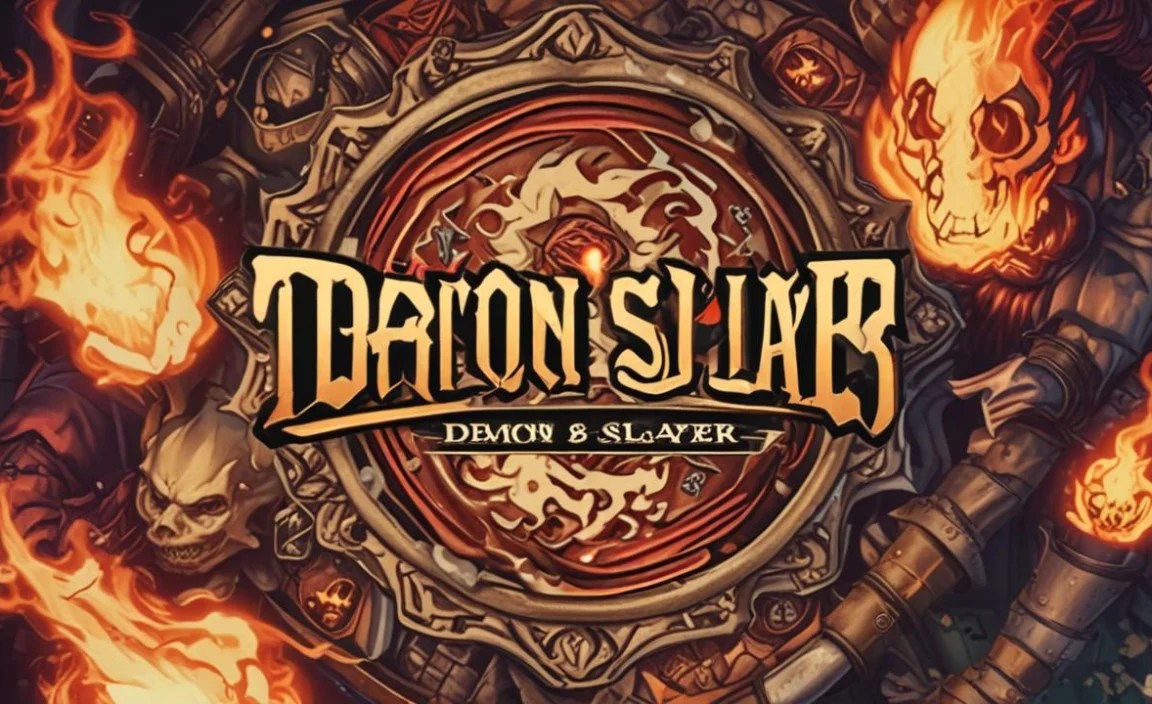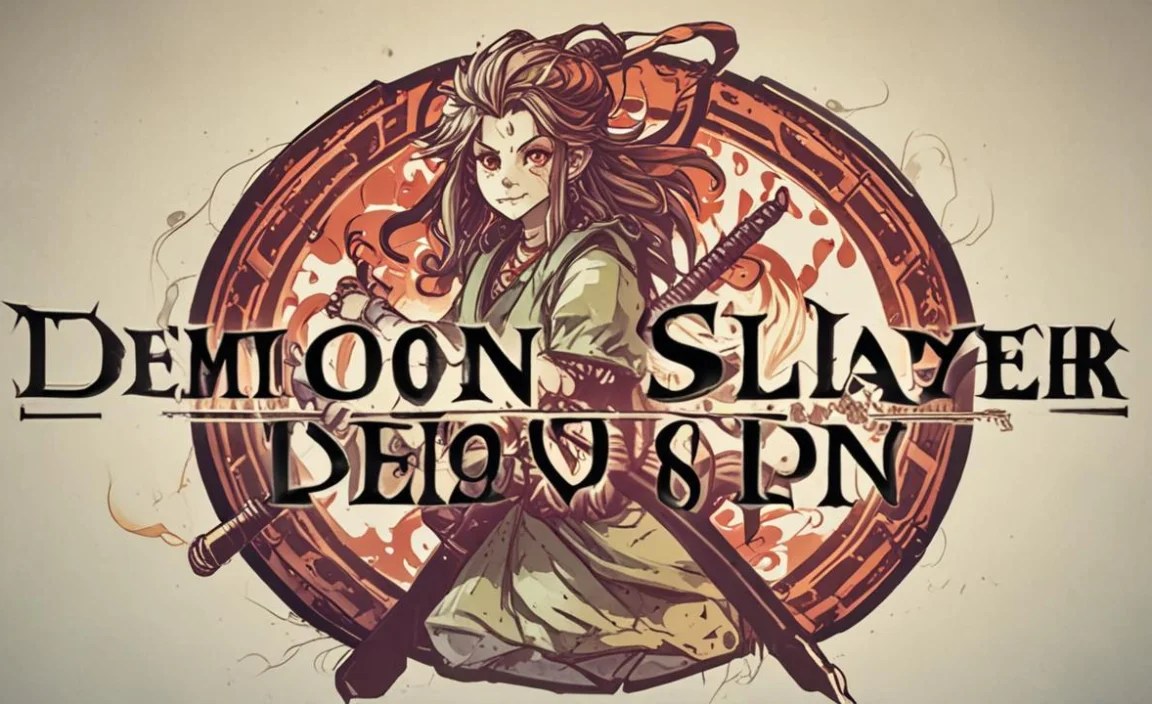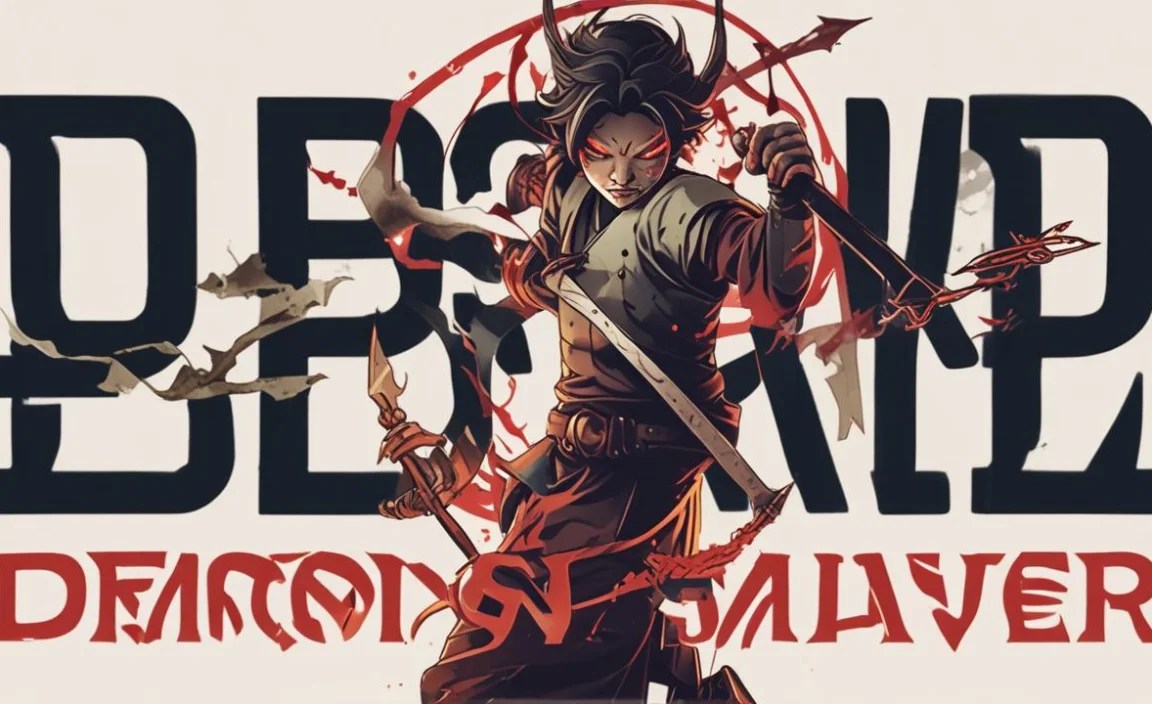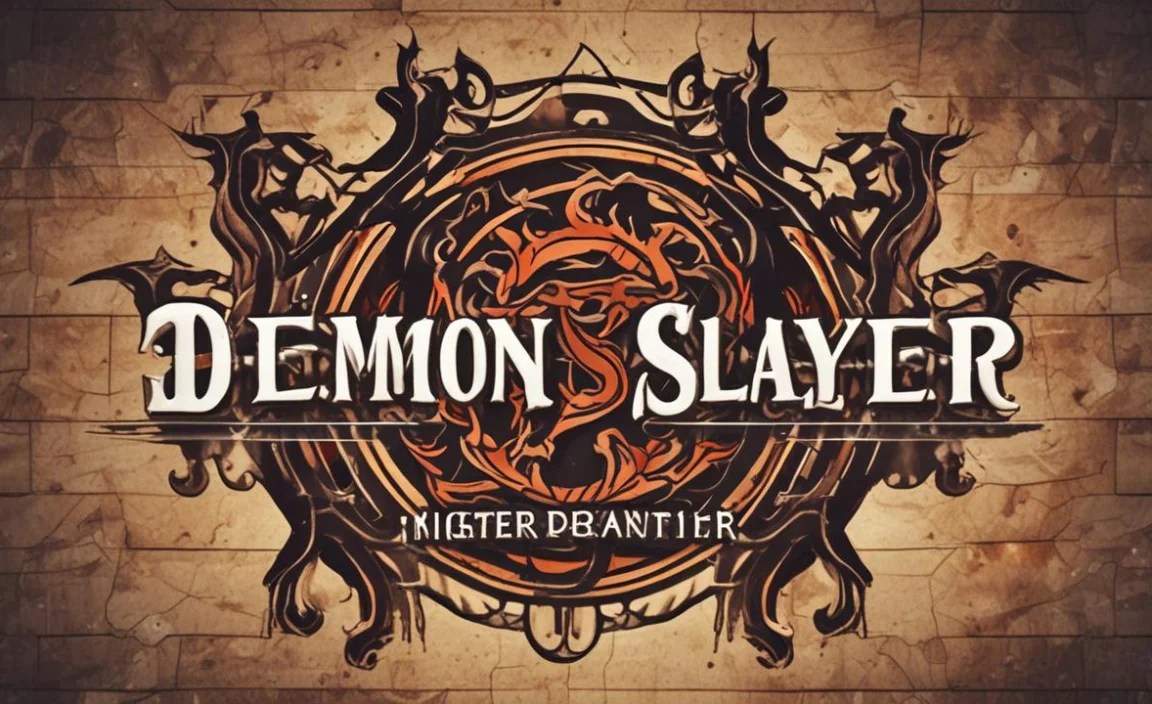
The Demon Slayer Font, prominently featured in the branding for the anime series Demon Slayer: Kimetsu no Yaiba, is a striking and thematic typeface that reflects the dark and dramatic essence of the series.
This font Blood Crow Condensed, widely used in the logo and promotional materials, encapsulates the series’ intense and thrilling atmosphere, making it an ideal choice for conveying its unique aesthetic.
Demon Slayer Font Information
| Name | Blood Crow Condensed |
| Style | Serif |
| Designer | Daniel Zadorozny |
| Type | Bold Serif |
Demon Slayer Font Family Includes
- Demon Slayer Regular
- Demon Slayer Katakana
- Demon Slayer Grunge
- Blood Crow Regular
- Blood Crow Italic
- Blood Crow Condensed Regular
- Blood Crow Condensed Italic
- Blood Crow Expanded Regular
- Blood Crow Expanded Italic
- Blood Crow Shadow Regular
- Blood Crow Shadow Italic
- Blood Crow Shadow Condensed Regular
- Blood Crow Shadow Condensed Italic
Where Demon Slayer Font Is In Use
The Demon Slayer Font plays a crucial role in establishing the series’ visual identity. Its bold and dramatic design makes it ideal for various applications. Notable uses include:
- Flyers,
- Posters,
- Apparel,
- Fan Arts,
- Title cards,
- Digital ads,
- Series Logos,
- Media graphics,
- DVD/Blu-ray packaging.
2. Why Is Demon Slayer Font Popular In Anime Branding?
The Demon Slayer Font’s bold and menacing design aligns perfectly with the series’ dark fantasy theme, enhancing its visual impact and appeal.
3. Are There Any Special Characters In The Demon Slayer Font?
The Blood Crow Condensed font includes standard characters but lacks extensive special characters or symbols.
4. What Are The Limitations Of The Demon Slayer Font?
The font’s bold serif style may not suit all design needs and is less versatile for detailed text work.
8. What Are The Different Versions Of Demon Slayer Font?
Demon Slayer Font includes styles like Regular, Condensed, Expanded, and Shadow, each available in both regular and italic versions, offering a versatile toolkit for designers.